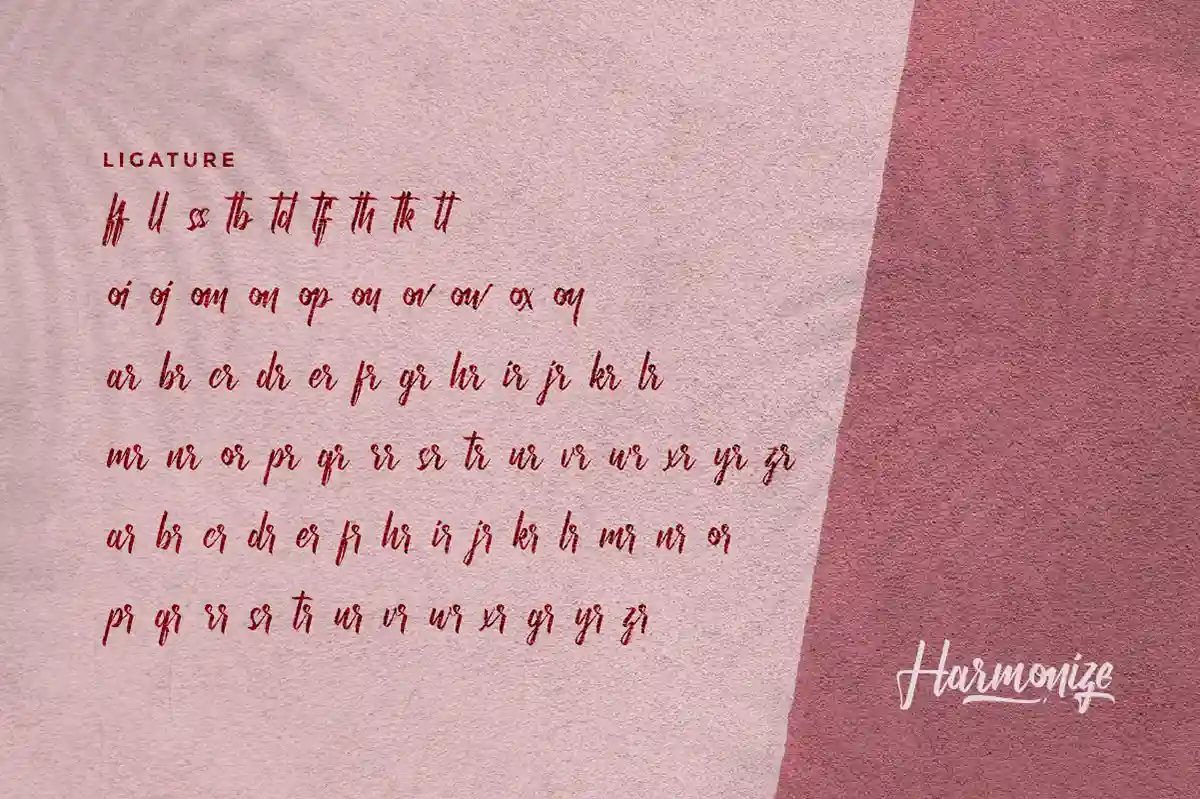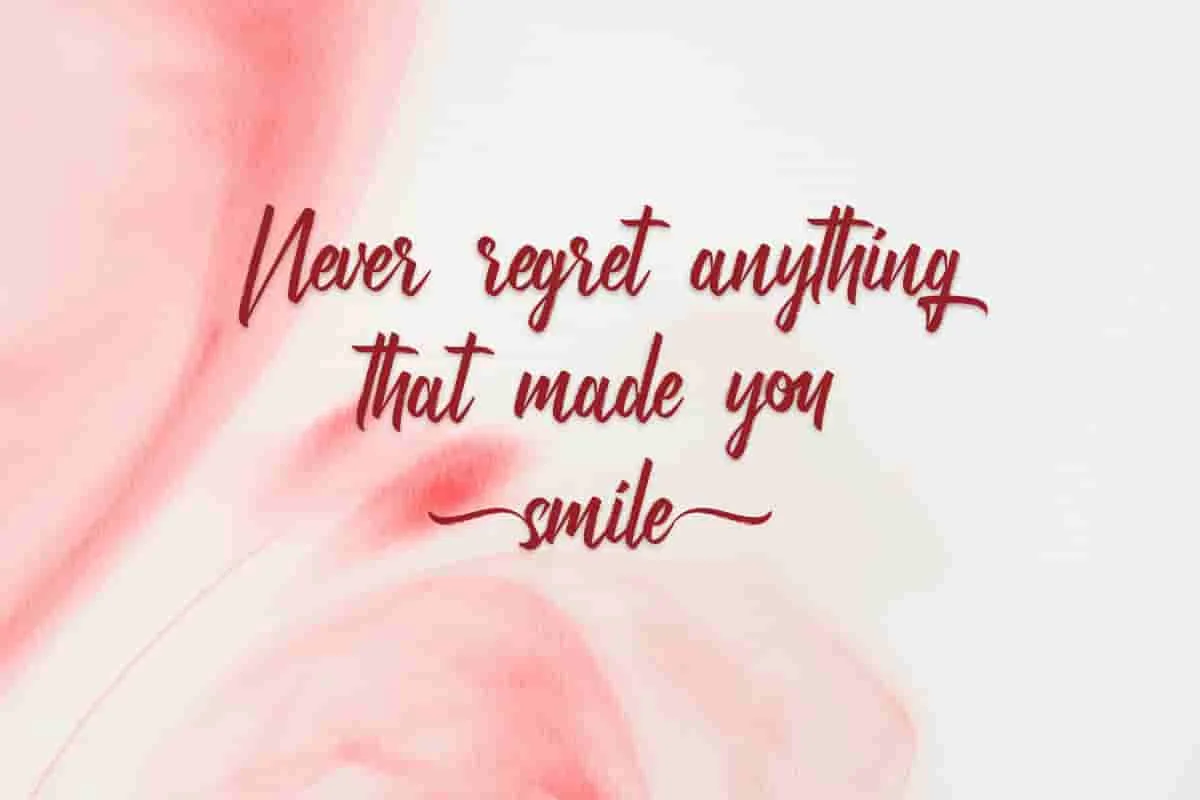
Harmonize calligraphy Font
Harmonize Font is a Calligraphy Script Font by RaisProject. With beautiful characters, it will be stunning for any your special projects including : weddings, promotion, events, branding, advertising etc
Harmonize Font  is a beautiful script font with calligraphy handwriting style. You can see the demo font below. You can also input any word you want so you can see what it will look like :
Harmonize Font made in Indonesia by Widi and Suci for RaisProject. The font handcrafted With beautiful characters, it will be stunning for any your special projects including : weddings, promotion, events, branding, advertising, magazine, shopping, signage, invitation, stationery, social media posts, product packaging, product designs, label, photography, watermark or and any projects that need calligraphy handwriting style Harmonize Font includes full set of gorgeous uppercase and lowercase letters, numerals, a large range of punctuation and ligatures.You will get: